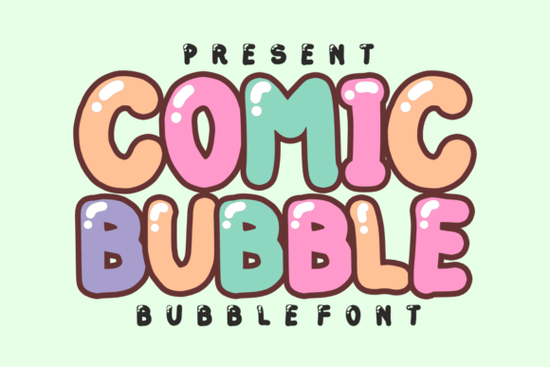
Comic Bubble Font is a standout choice for anyone looking to add a touch of whimsy and charm to their designs. This playful typeface is perfect for projects that need a lighthearted, cheerful vibe. Whether you're creating invitations, packaging, or social media graphics, Comic Bubble brings a friendly and approachable feel that's hard to match.
The font’s design features chunky, rounded letterforms with smooth edges, giving it a soft and inviting look. Its glossy, reflective effect and multi-colored fills enhance the three-dimensional quality, making it stand out in any project. The overall style is reminiscent of classic bubble fonts but with a modern twist that makes it versatile for a wide range of applications.
If you're working on children's content, such as birthday invitations, candy packaging, or kindergarten branding, Comic Bubble Font can be a valuable addition to your toolkit. It also works well for comic book sound effects, social media posts, and other creative projects that benefit from a fun and energetic visual style.
Why Choose Comic Bubble Font?
One of the key strengths of Comic Bubble Font is its ability to convey joy and positivity through typography. The font’s design is carefully crafted to maintain a balance between playfulness and readability, ensuring that it looks great in both digital and print formats. This makes it ideal for designers, crafters, and small businesses looking for a reliable and expressive font option.
Best Uses for Comic Bubble Font
Comic Bubble Font shines in projects that require a friendly and engaging tone. Here are some common use cases:
- Children's Invitations: Perfect for birthdays, parties, and special events aimed at kids.
- Candy and Dessert Packaging: Adds a sweet and appealing visual element to product labels and wrappers.
- Comic Book Sound Effects: Brings a dynamic and playful feel to text used in comics and graphic novels.
- Social Media Posts: Makes content more eye-catching and relatable, especially for brands targeting younger audiences.
- Kindergarten Branding: Helps create a welcoming and educational atmosphere for early learning environments.
Its versatility means that it can be used across multiple platforms, including web design, print materials, and digital illustrations. The font’s unique characteristics make it easy to recognize and remember, which is an important factor for branding and marketing efforts.
How to Use Comic Bubble Font Effectively
To get the most out of Comic Bubble Font, consider the following tips:
- Pair it with simple backgrounds: Let the font take center stage by using clean, neutral colors or minimalistic designs.
- Use it for short phrases: The font works best with concise text, such as headlines, captions, or labels.
- Experiment with color: The multi-colored fills and glossy effects can be enhanced with complementary color schemes.
- Test different sizes: Adjust the font size to ensure it remains readable while maintaining its playful character.
By following these guidelines, you can ensure that your designs remain visually appealing and effective in communicating the intended message.
Whether you're a designer, crafter, or small business owner, Comic Bubble Font offers a fun and flexible way to bring personality and energy to your work. With its unique design and wide range of applications, it's a valuable resource for anyone looking to add a touch of joy to their creative projects.